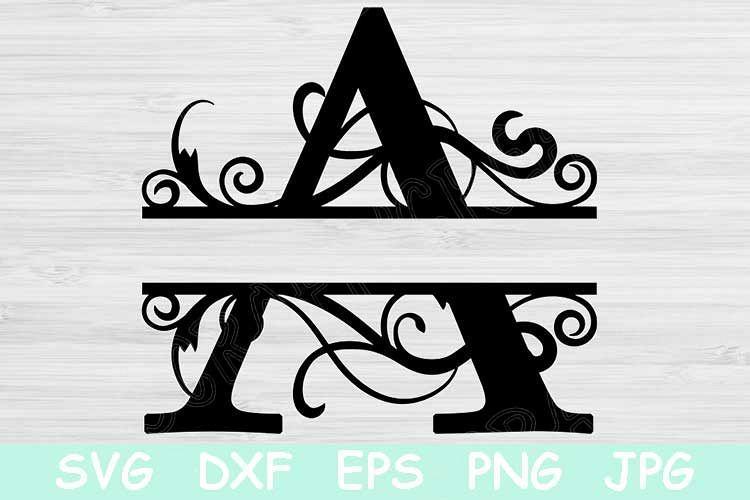
Split Letter Svg, Monogram Svg. Alphabet Font Svg Files for Cricut and Silhouette. Black Sliced Capital Letter Cut Files with Swirl Designs.
This listing is for all upper case split letters.
This is the entire alphabet.